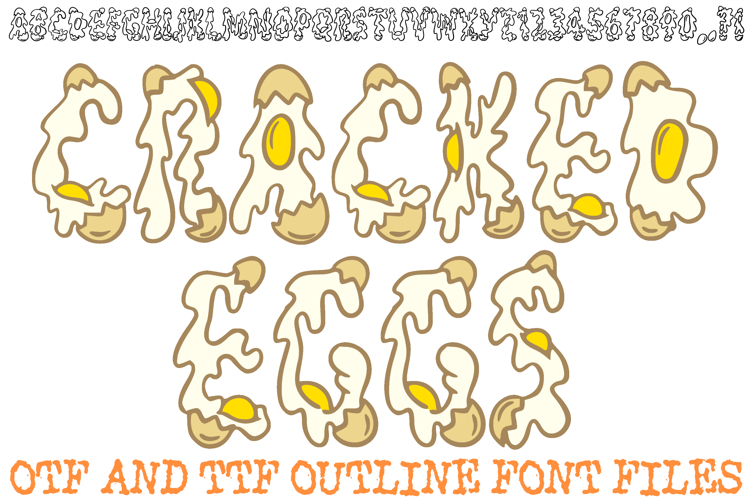
The Cracked Eggs Lettering Font is a whimsical, hand-drawn display typeface that transforms the alphabet into a series of freshly cracked breakfast treats. Each letter is creatively illustrated with oozing egg whites, vibrant yellow yolks, and jagged brown eggshell fragments at the base and tips. This font is an ideal choice for brunch menus, farm-to-table kitchen decor, playful bakery branding, and morning-themed social media graphics.
Crafted with a fluid, "dripping" silhouette, these characters provide a humorous and organic aesthetic that is perfect for food enthusiasts. Whether you are a designer creating a quirky logo for a breakfast café or a crafter designing custom kitchen apparel, the Cracked Eggs Lettering Font delivers a unique, artisan-illustrated look that turns every word into a culinary conversation starter.
Food-Focused Alphanumerics: Every letter (A–Z) and number (0–9) is designed as an individual cracked egg, featuring realistic dripping textures and shell details.
Detailed Hand-Drawn Outlines: The bold black outlines and organic shapes are perfect for "coloring book" style projects, sublimation, or layering over vibrant breakfast-themed palettes.
Playful Punctuation: Includes high-personality symbols like a dripping period and comma to keep your food messaging consistent and fun.